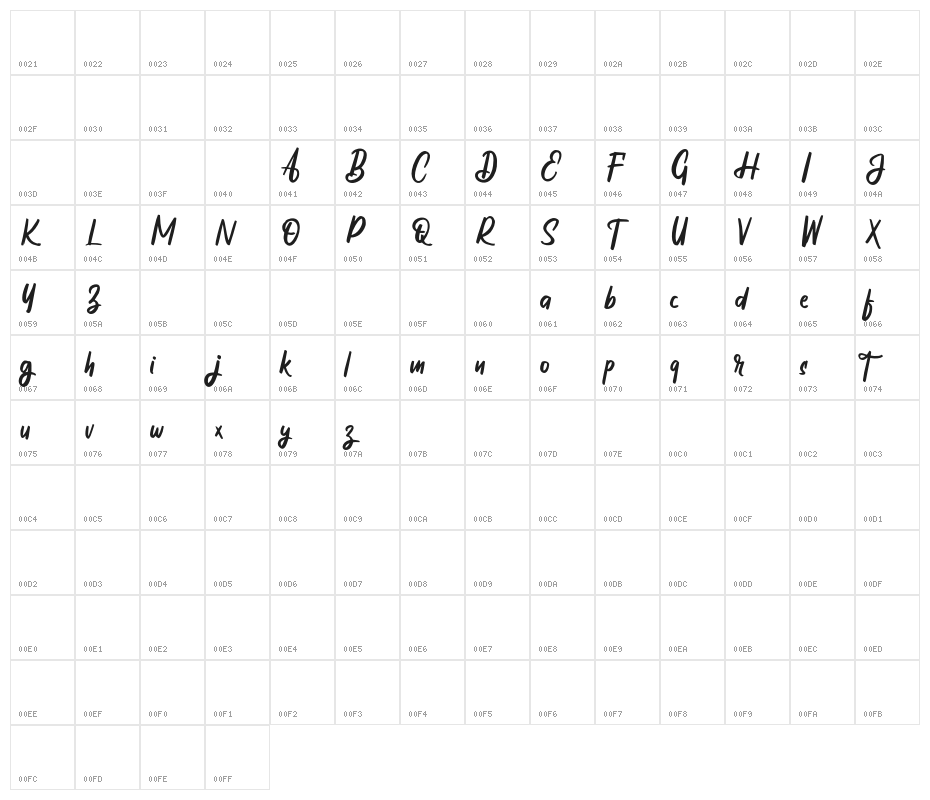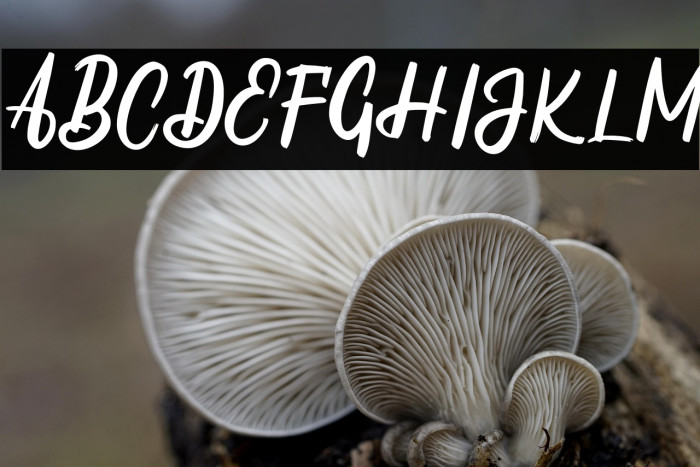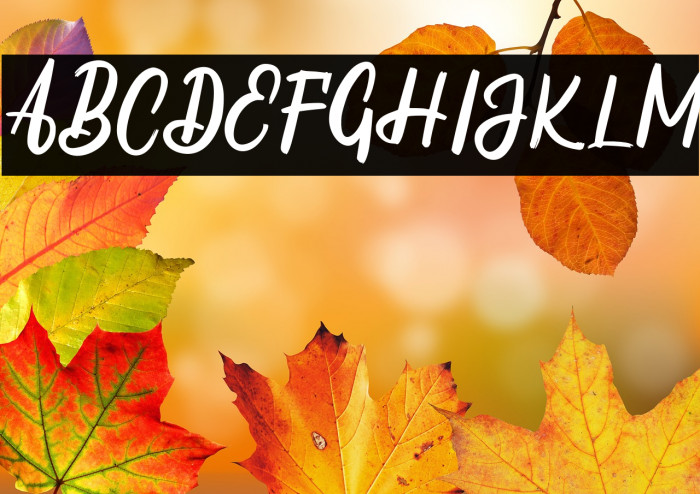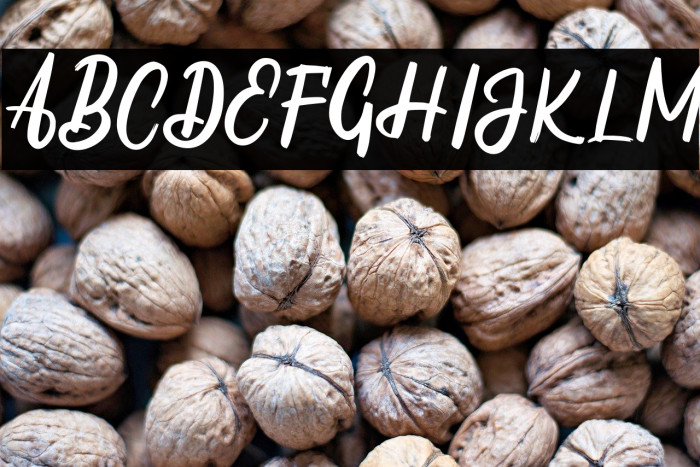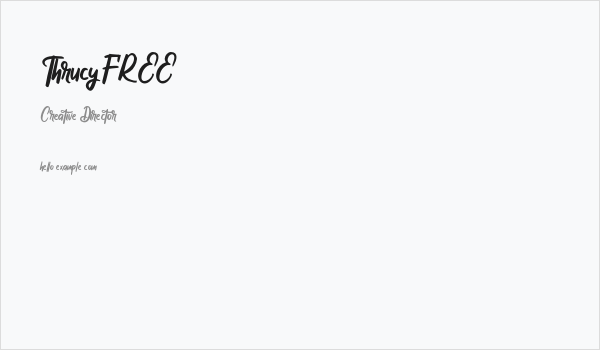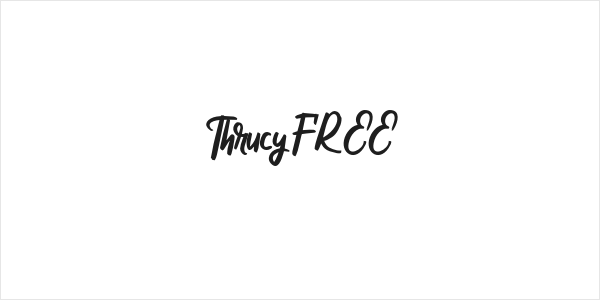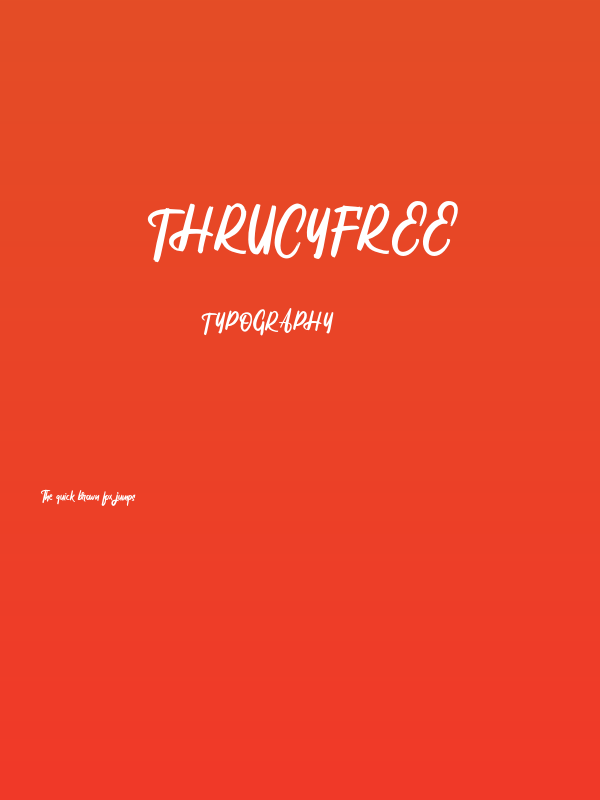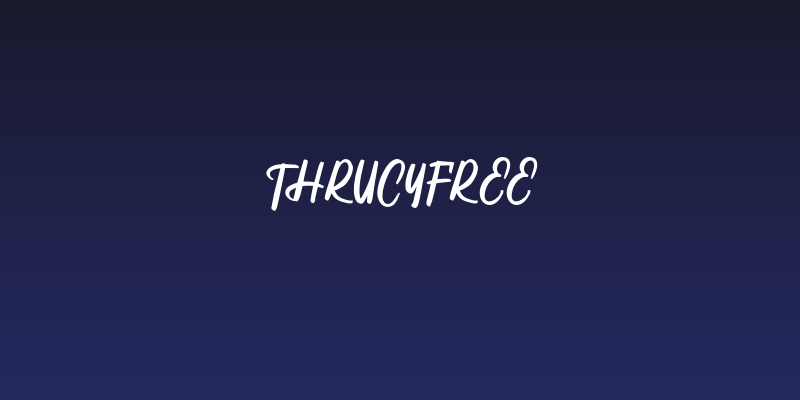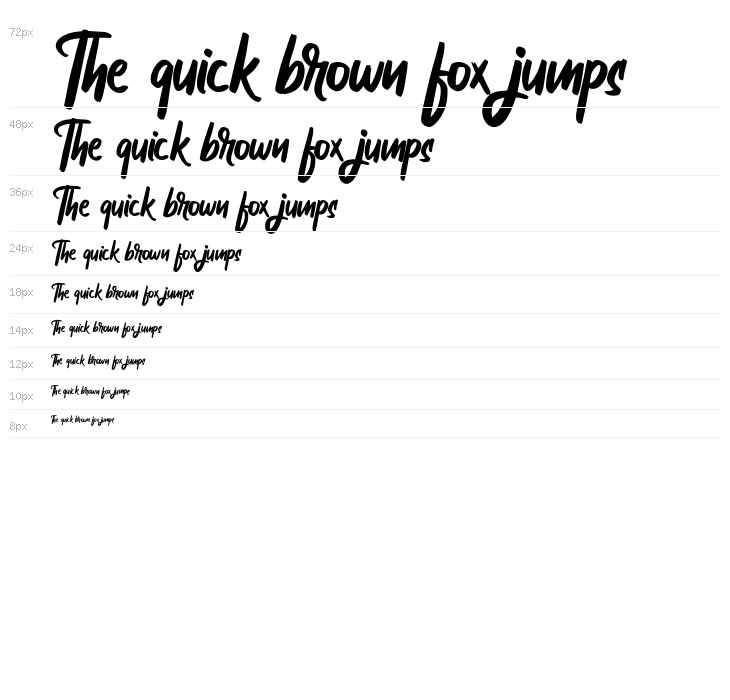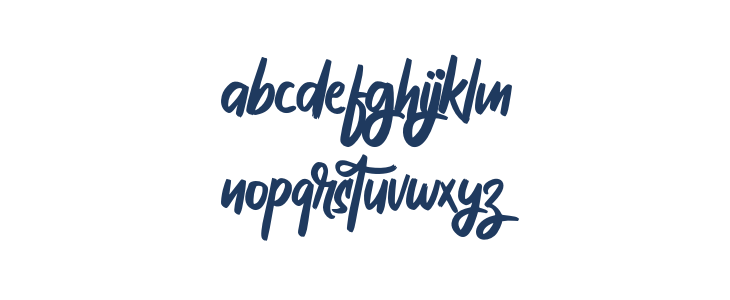
ThrucyFREE Font
ThrucyFREE Description
This font features a dynamic and energetic script style, characterized by its bold and flowing letterforms. The uppercase letters exhibit a playful and slightly exaggerated flair, with strokes that vary in thickness, adding a sense of movement and rhythm. The lowercase letters maintain this lively aesthetic, with smooth curves and a cohesive flow that enhances readability. The font's overall appearance is modern and stylish, making it suitable for a variety of creative applications. Its unique character is further emphasized by the inclusion of special characters, which share the same bold and expressive design.